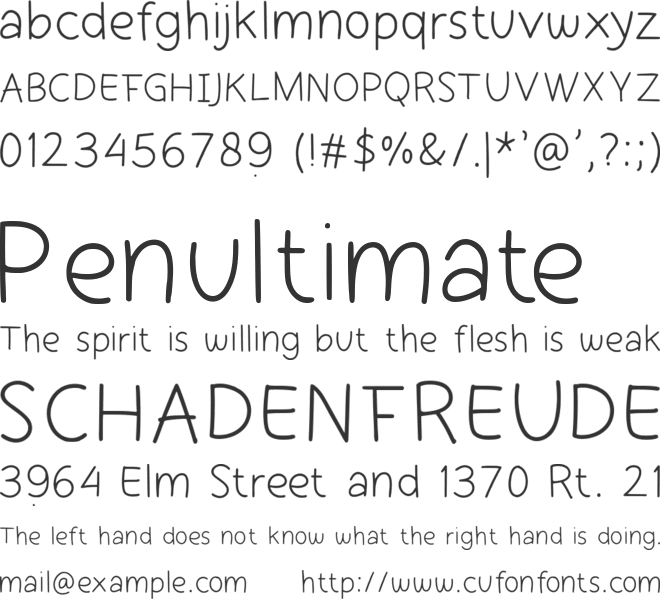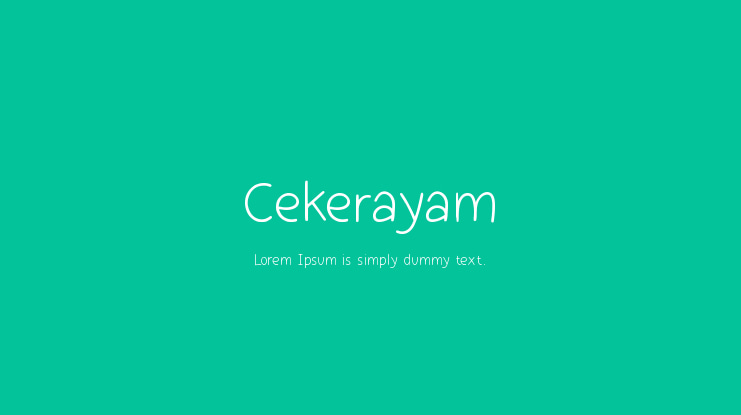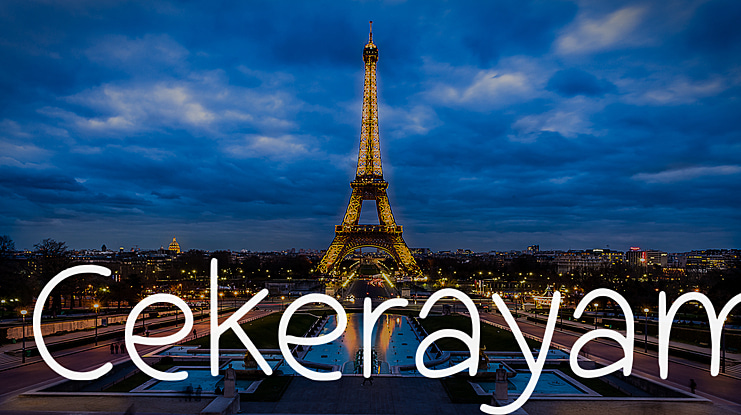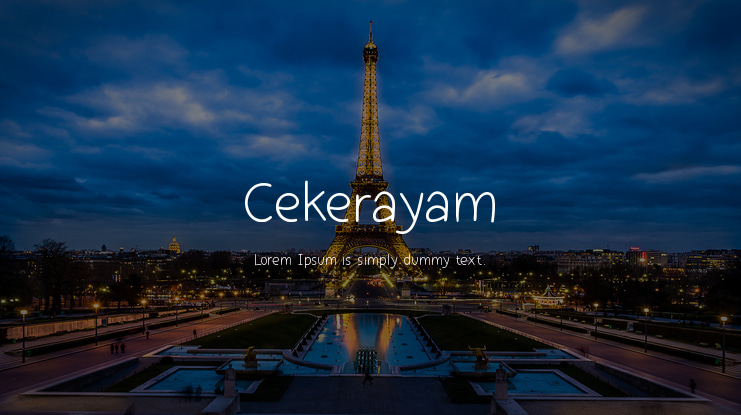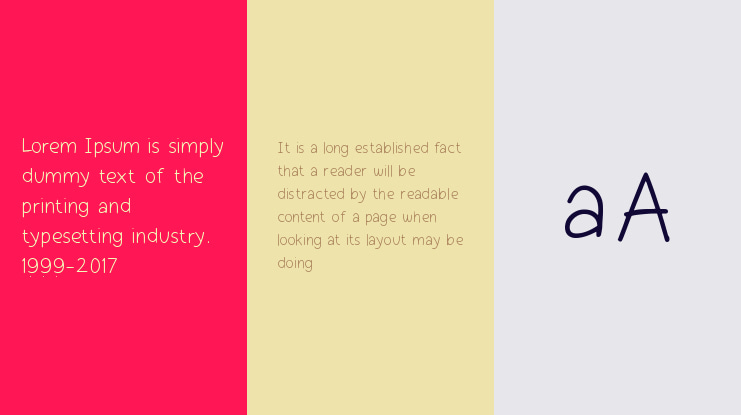
Cekerayam Font
Agustian Eko Saputro
ntroducing cekerayam, a hand drawn font that will make your day more cheerful. This font is perfect for you who find a cute hand drawn font. Enjoy Komiko!